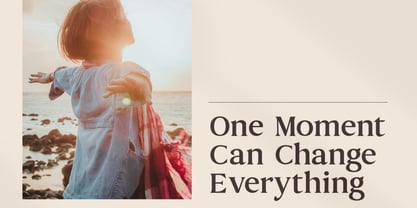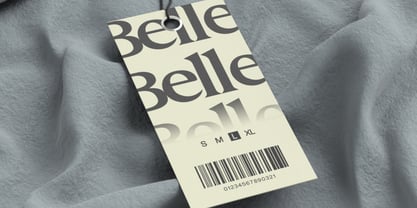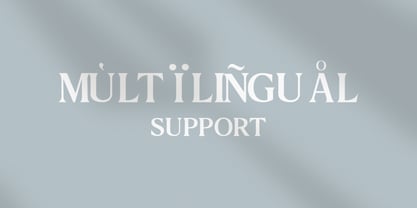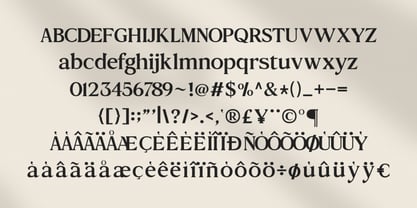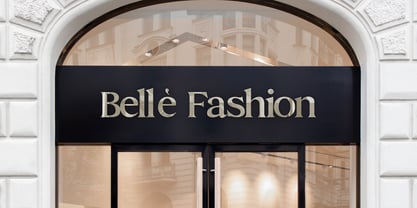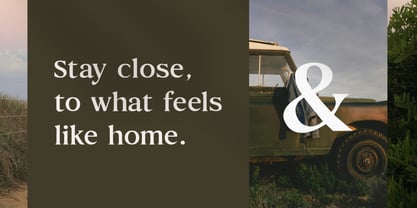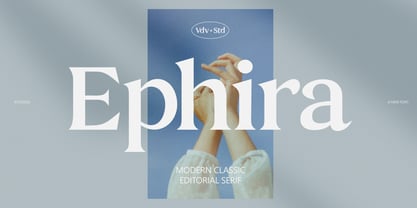
Ephira
Ephira is a modern classic editorial serif font that blends timeless elegance with contemporary refinement. Designed with balanced contrast, smooth curves, and sharp serifs, Ephira evokes sophistication in every letterform. It includes uppercase, lowercase, numerals, punctuation, and extensive multilingual support. This typeface is optimized for display applications and editorial use, making it perfect for magazine titles, fashion branding, packaging design, book covers, and high-end marketing visuals. Ephira is highly suitable for creative professionals and brands seeking a luxurious, editorial feel. Its refined structure and visual harmony make it ideal for fashion campaigns, lifestyle branding, packaging, high-end publications, wedding stationery, and minimalist designs.